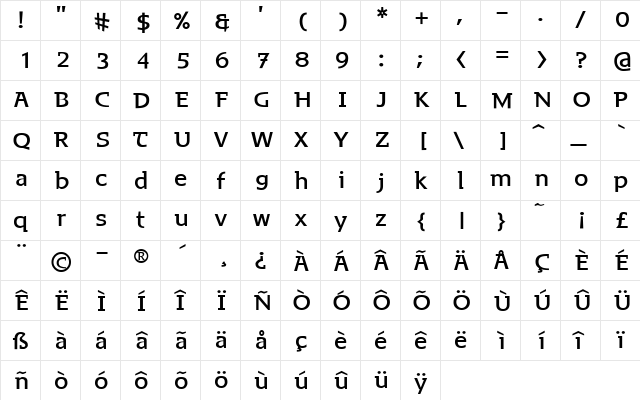
Browser Bold
Design Context for Browser Typeface
Browser takes a measured approach to typography — its balanced proportions and neutral character make it a reliable workhorse for both digital and print work. The heavy weight commands attention and anchors typographic hierarchies.